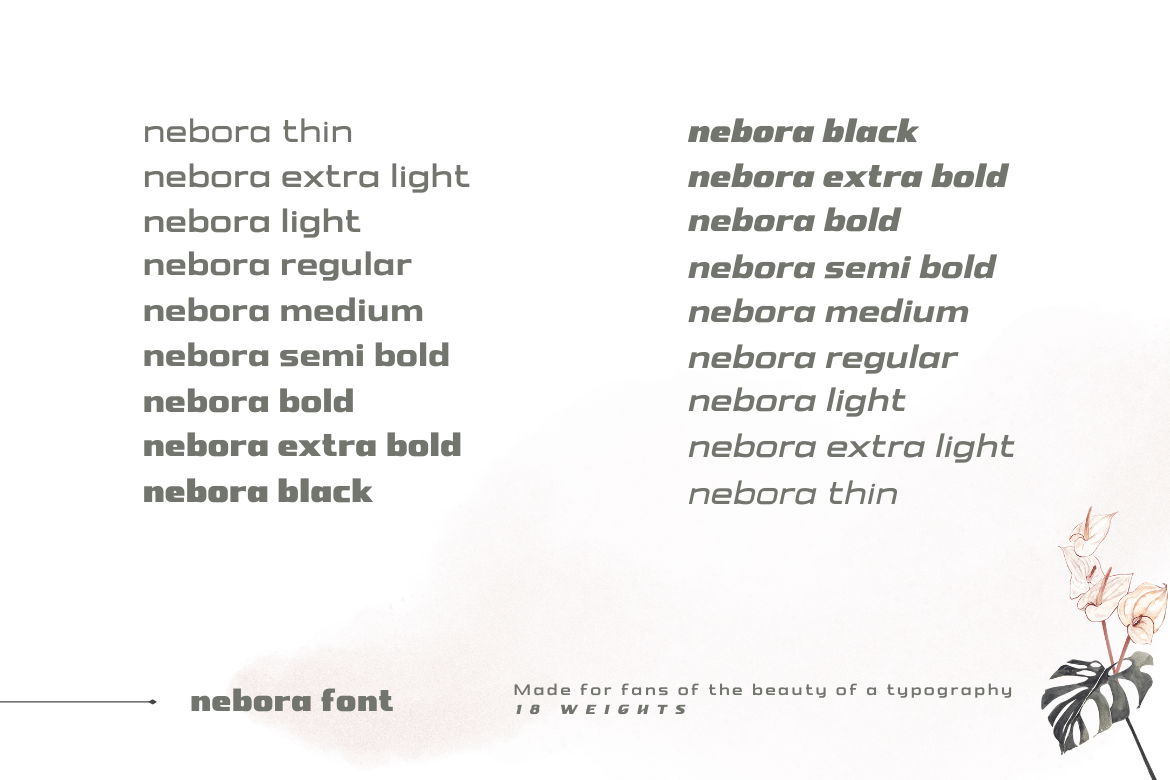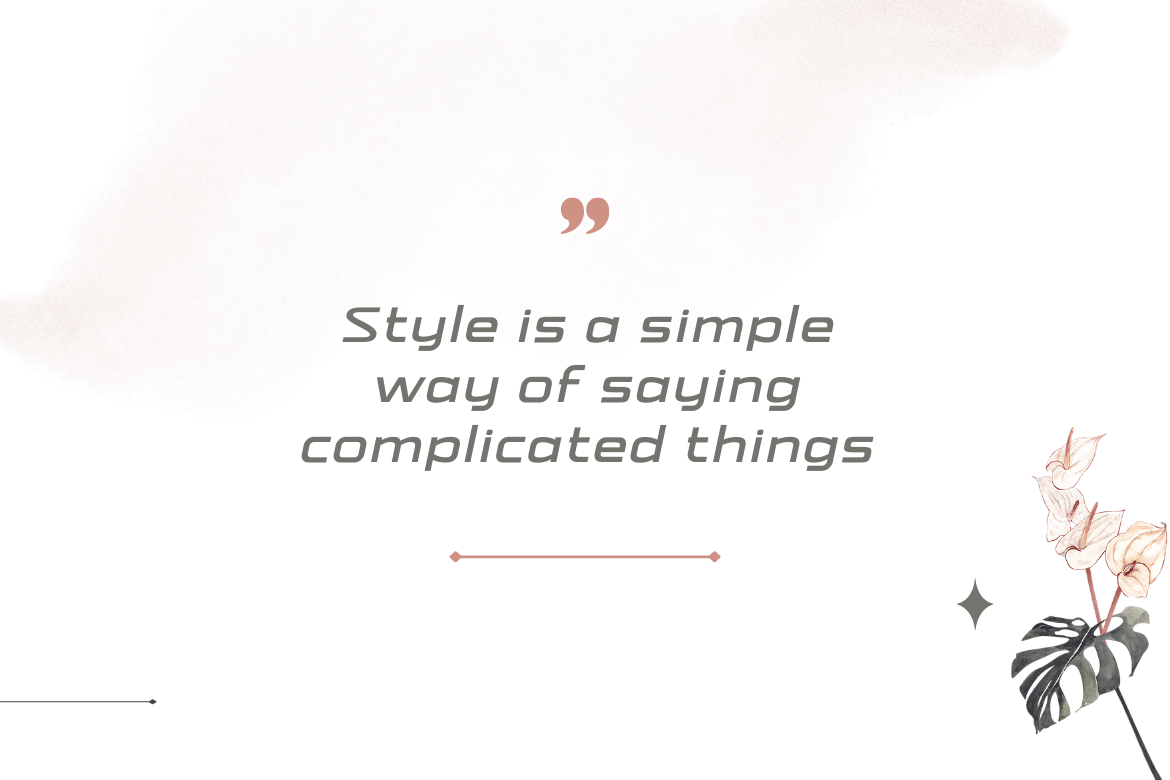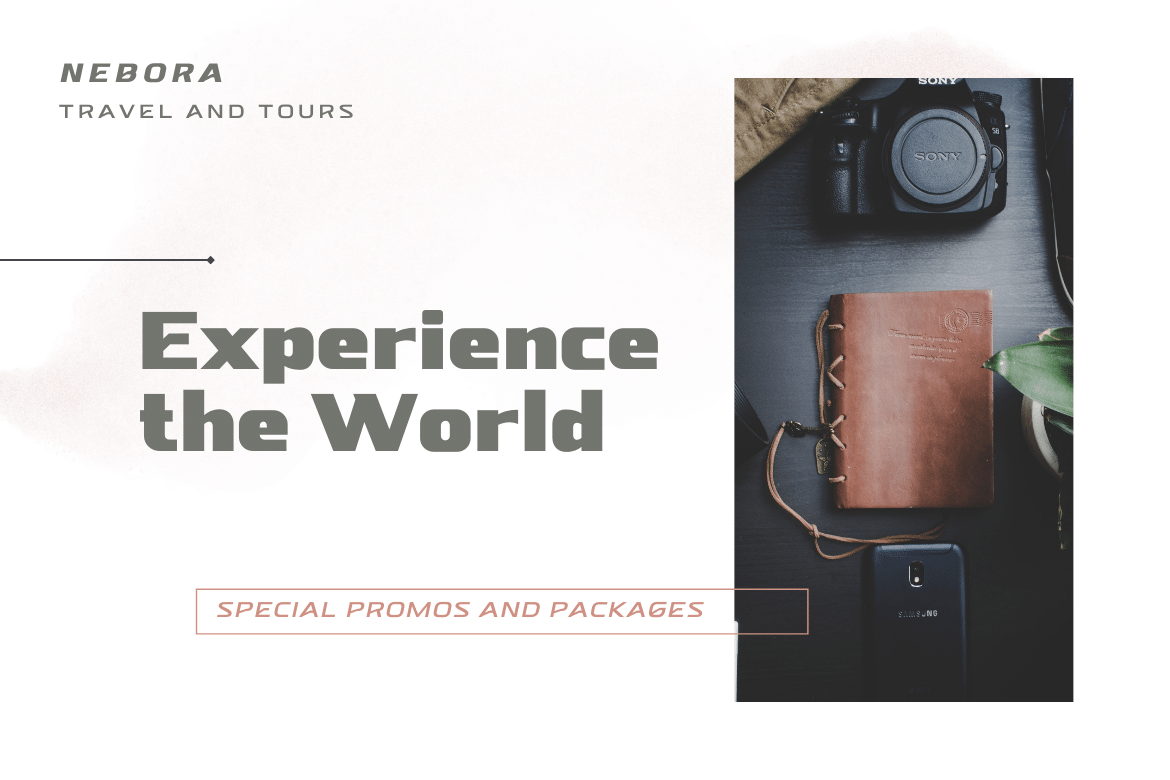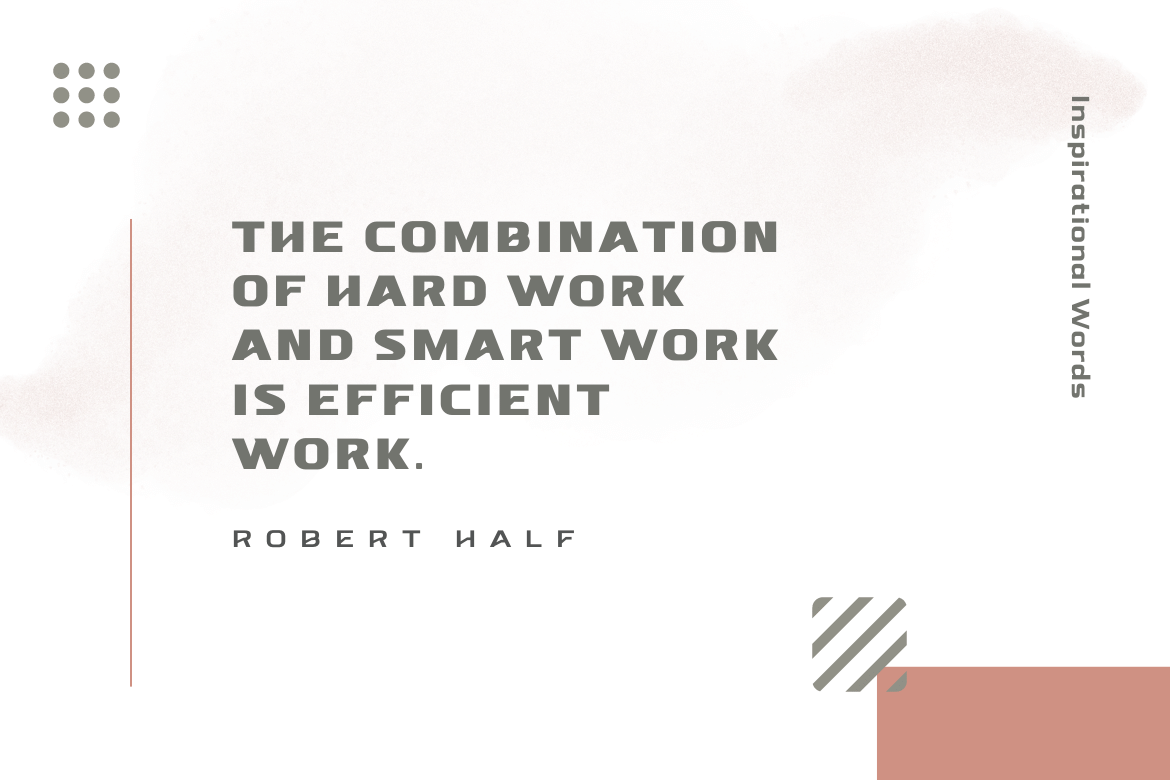
Nebora Display Font
This is a typeface that makes a big statement with clean, basic lines and an emphasis on negative space. This geometric style font is excellent for magazine headlines, product packaging, posters, and more, and is inspired by the magnificent beauty and fresh air of the Arctic. In lowercase, Nebora is charming and charismatic; in capital letters, she is sophisticated and authoritative. The humanist feel adds warmth, while hard lines and sharp edges flow into the smooth rounded curve of the letters. To develop a typography-focused design that really jumps out, try it in 16 weights, including obliques.